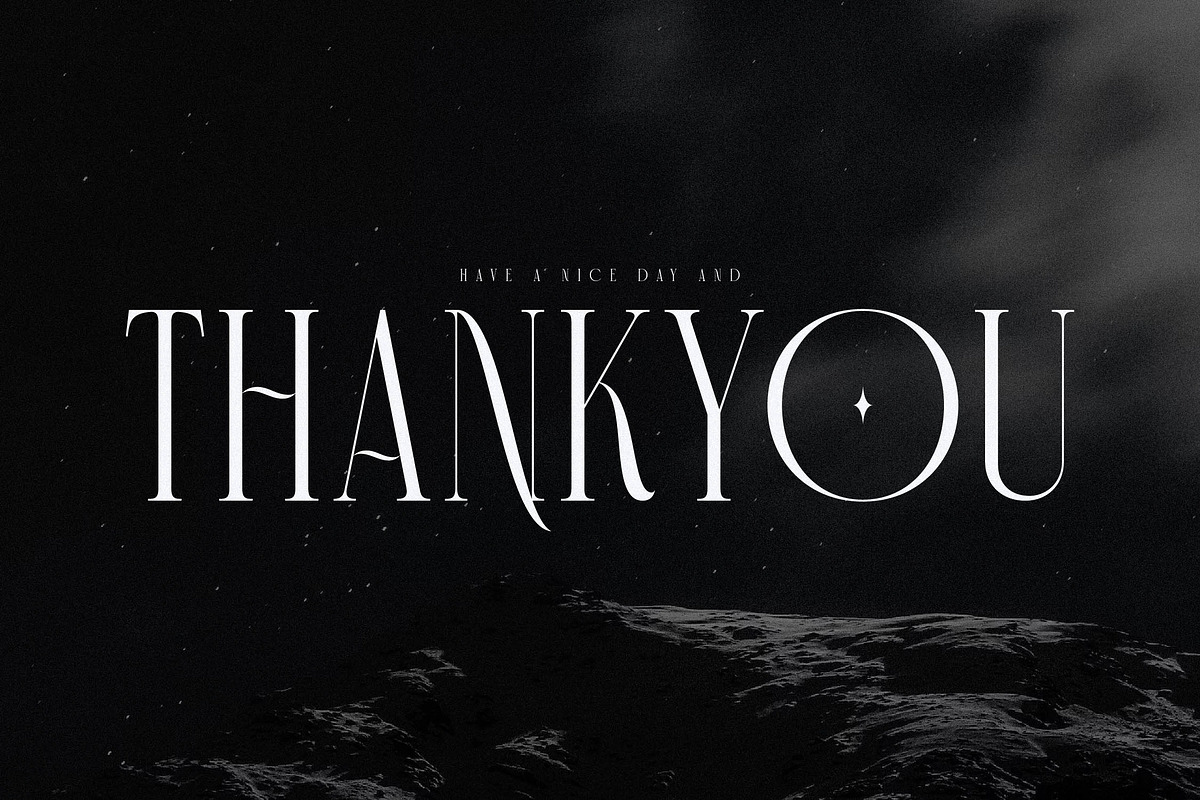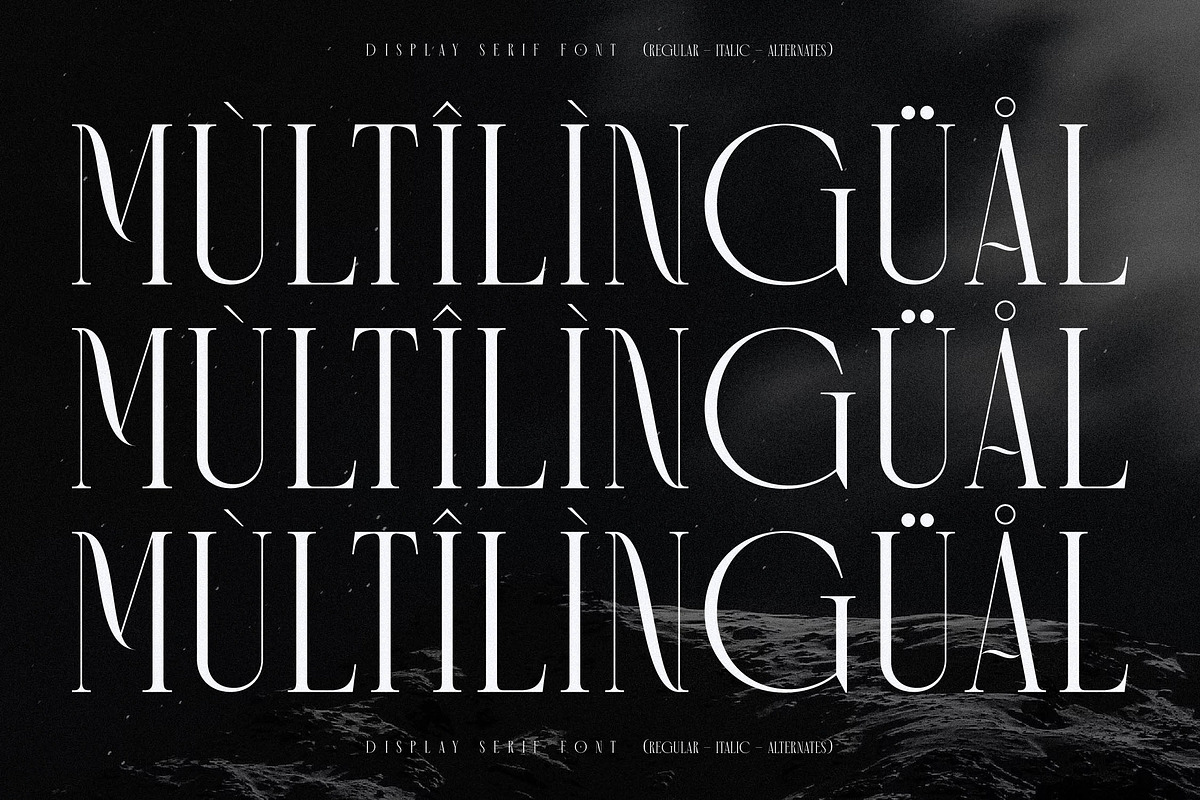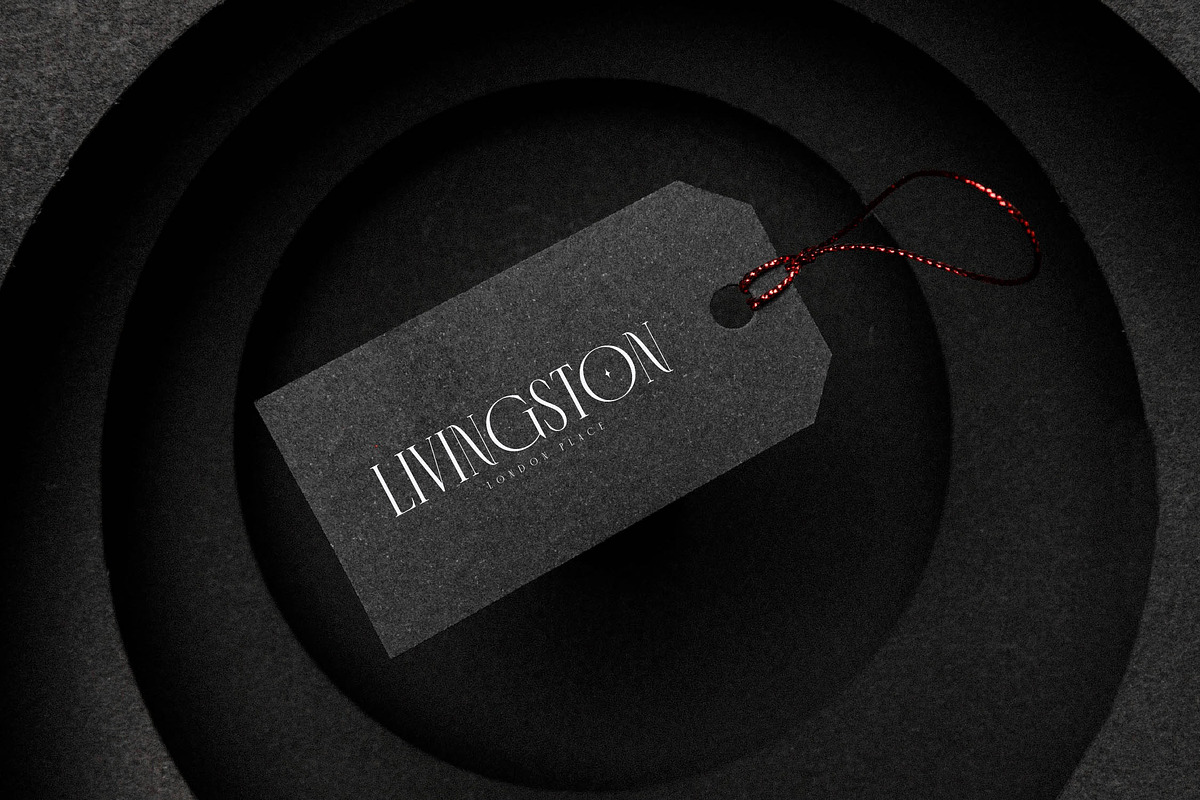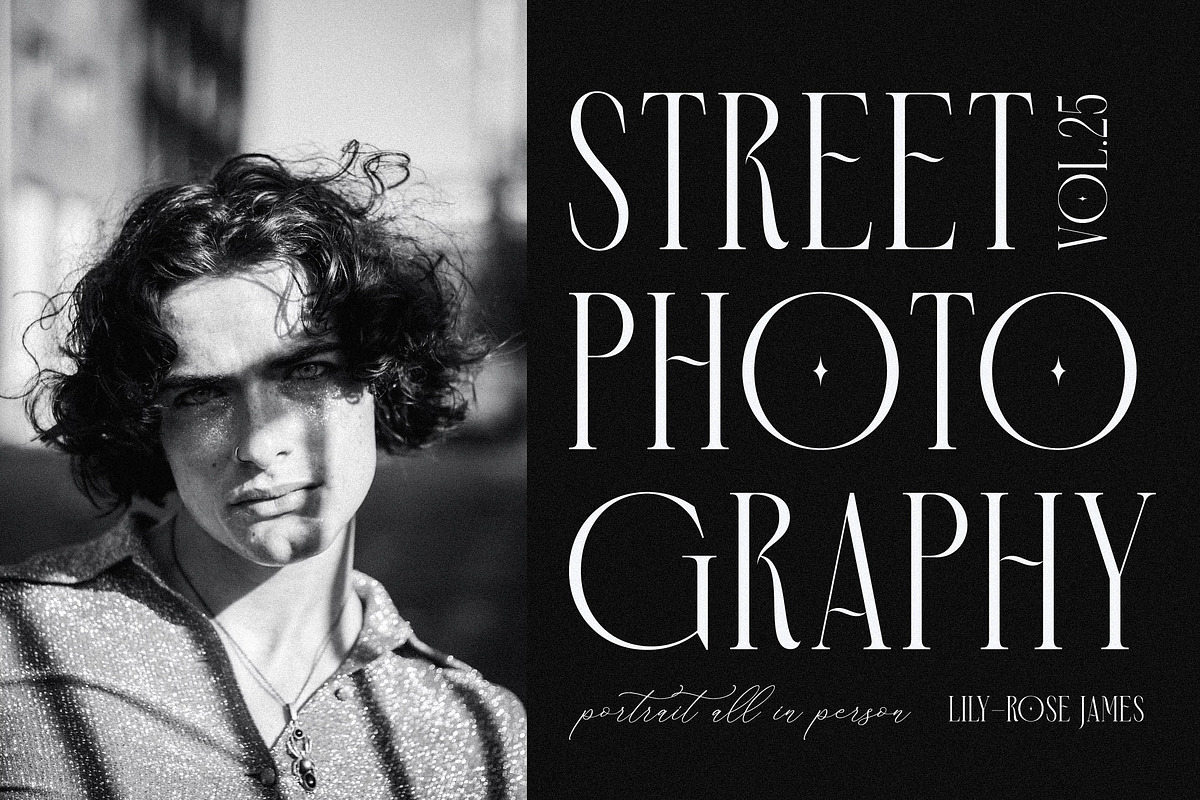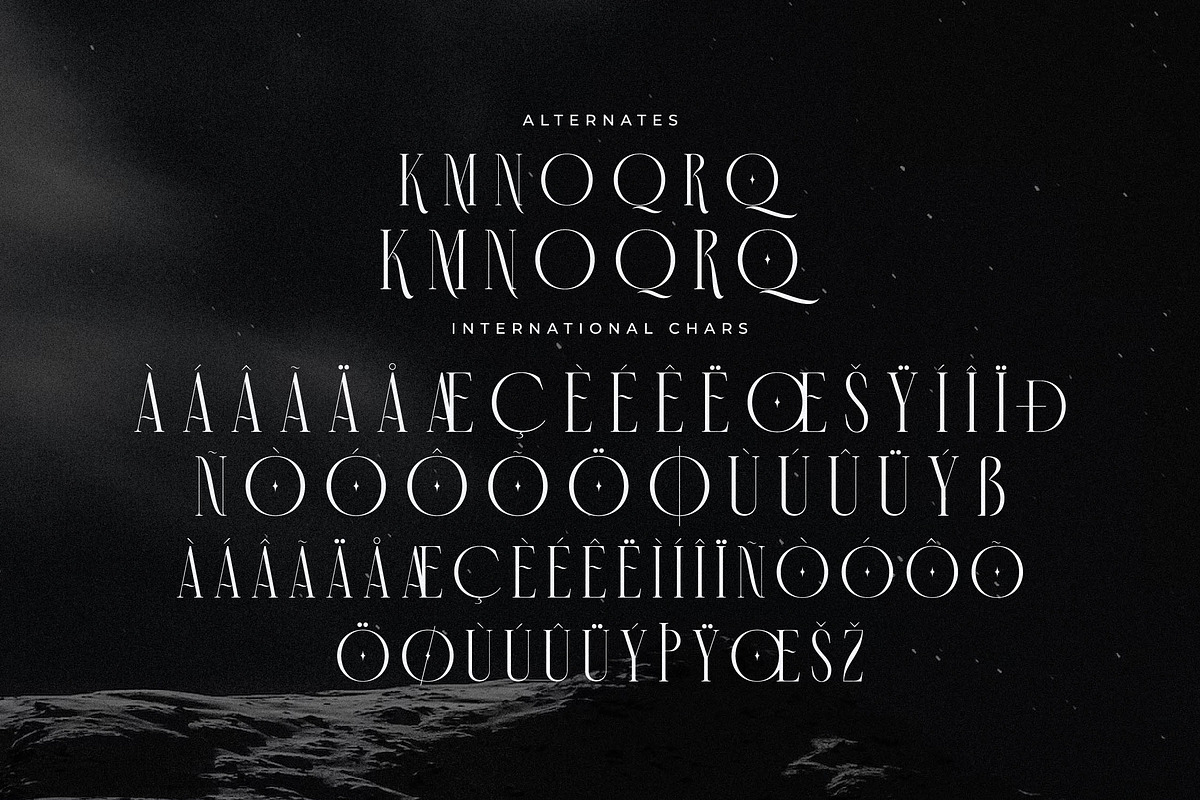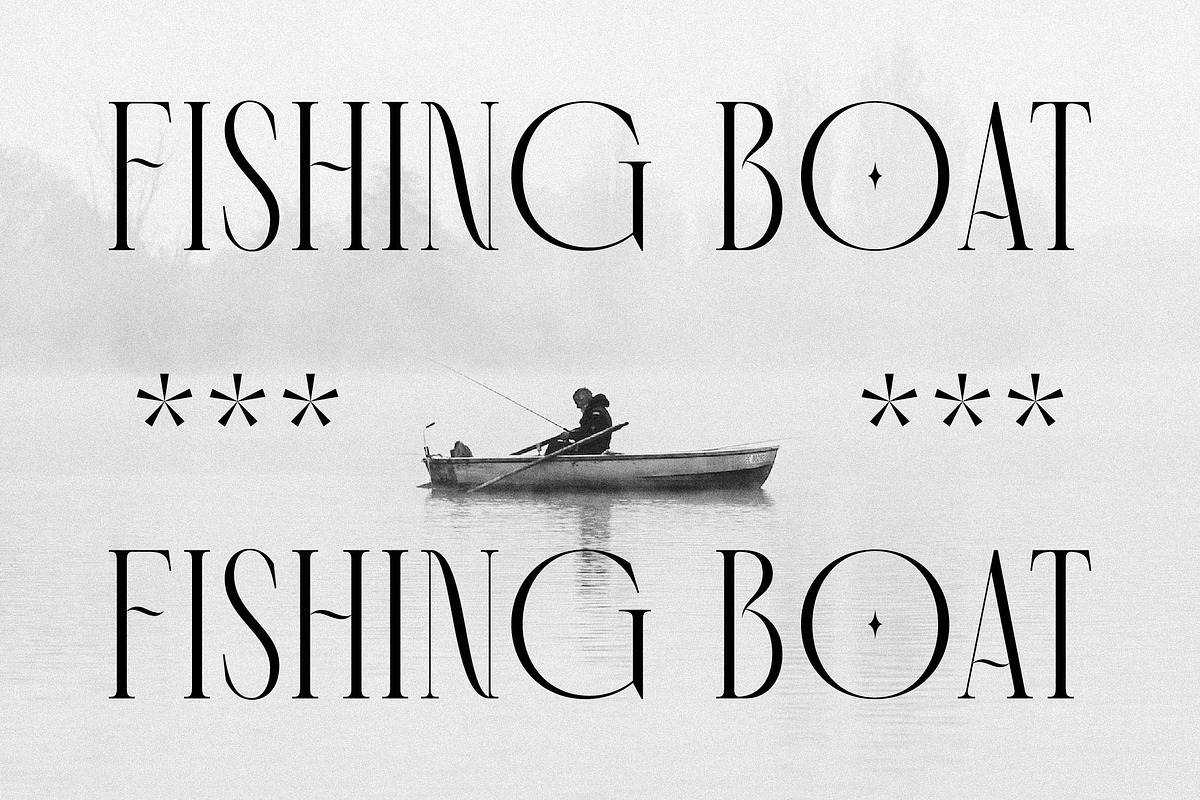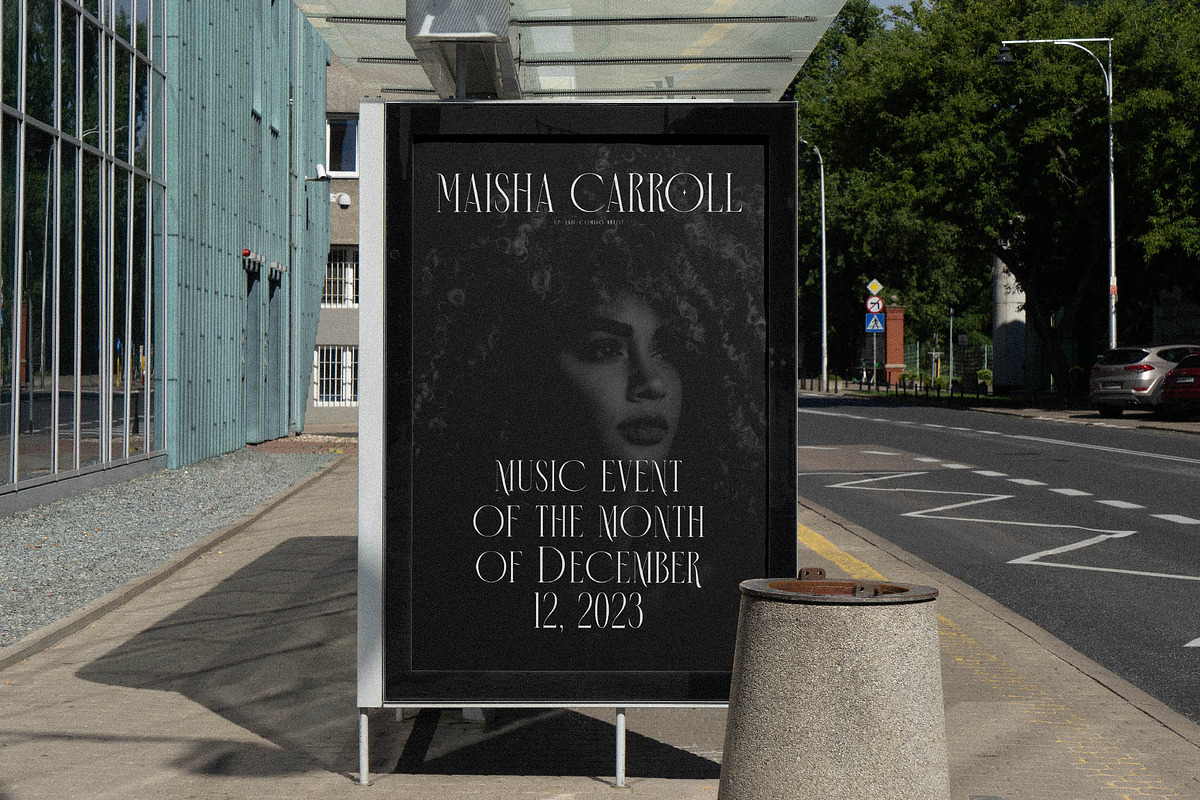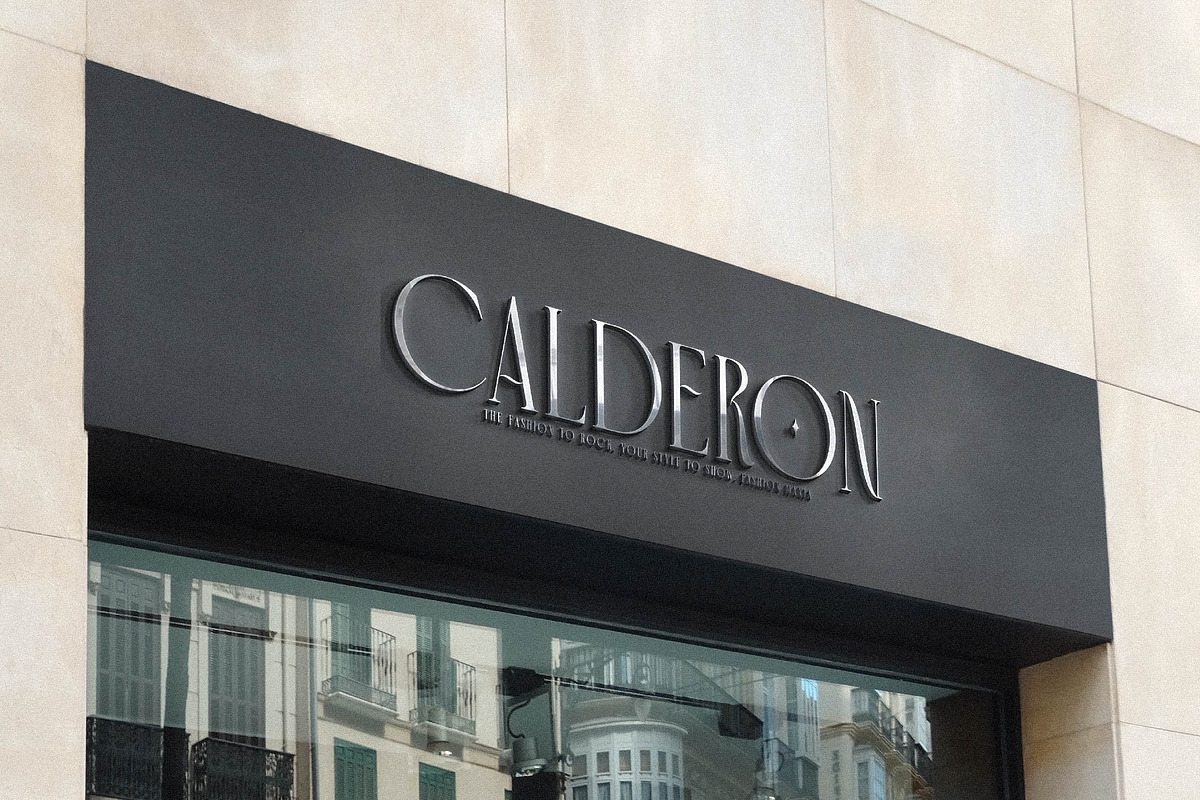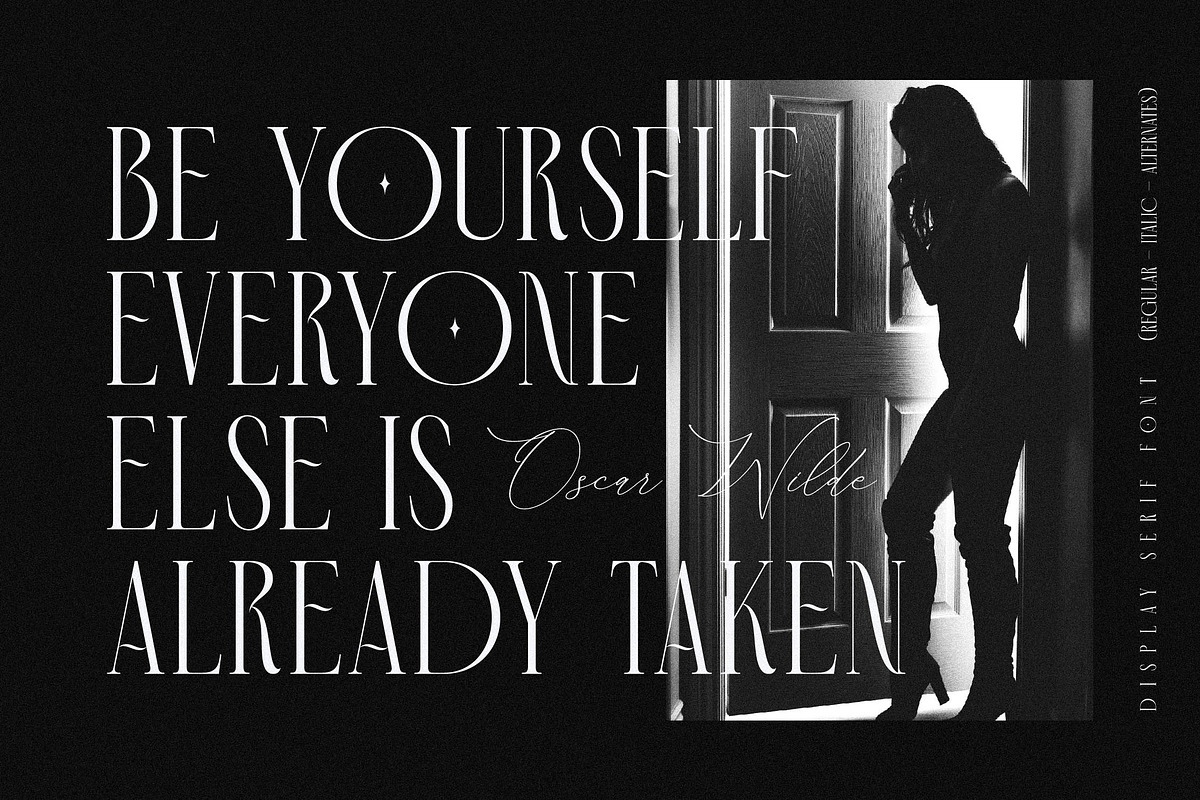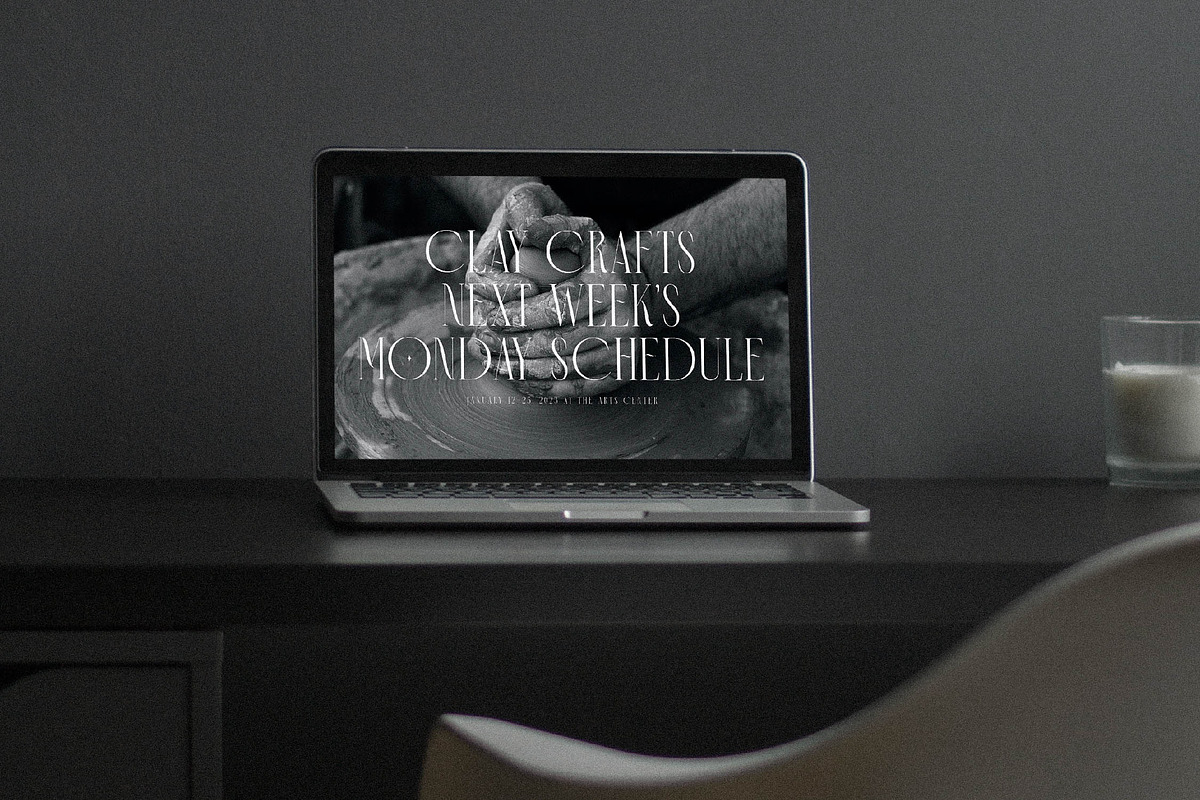
Meorgine Display Serf Font
Proudly present Meorgine Typeface , created by Storytype, A serif modern and classic typeface that has own unique style & modern look. This typeface is perfect for an elegant & luxury logo, book or movie title design, fashion brand, magazine, clothes, lettering, quotes, and so much more.